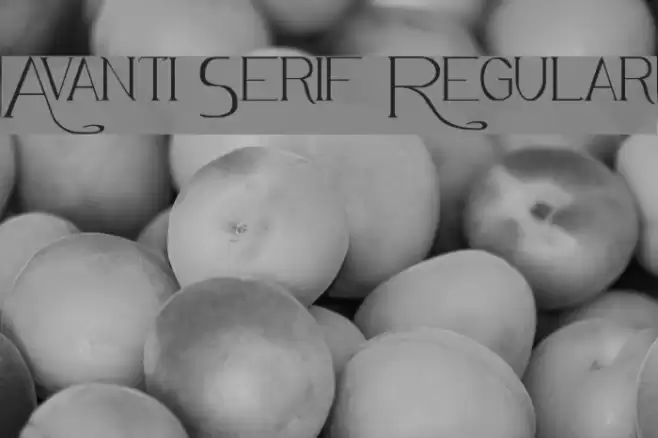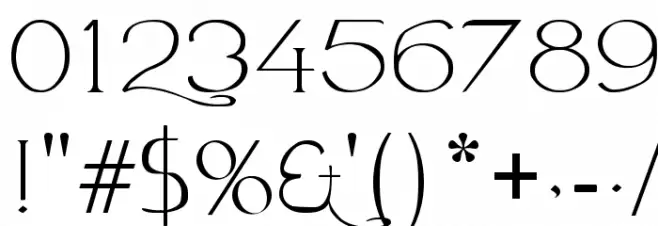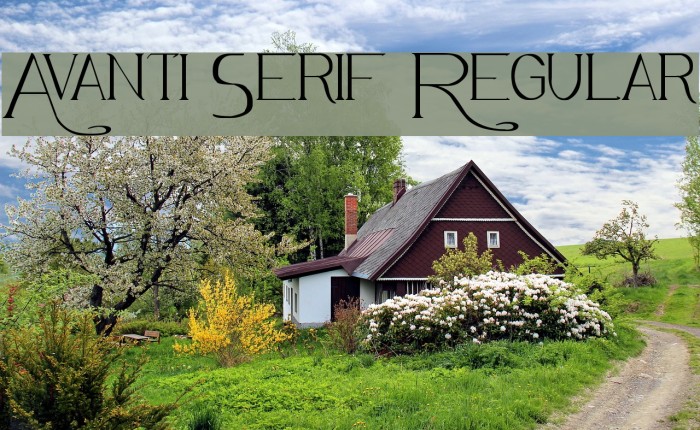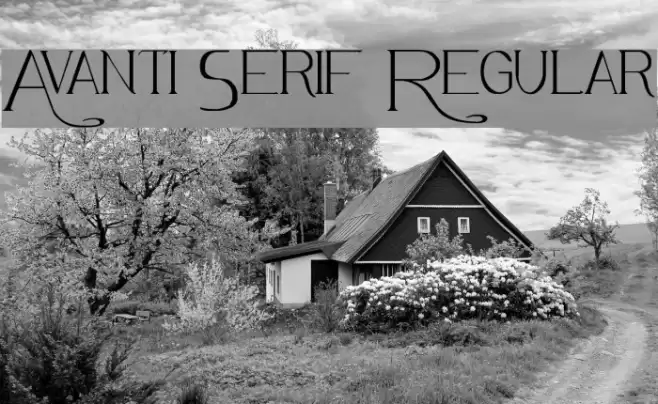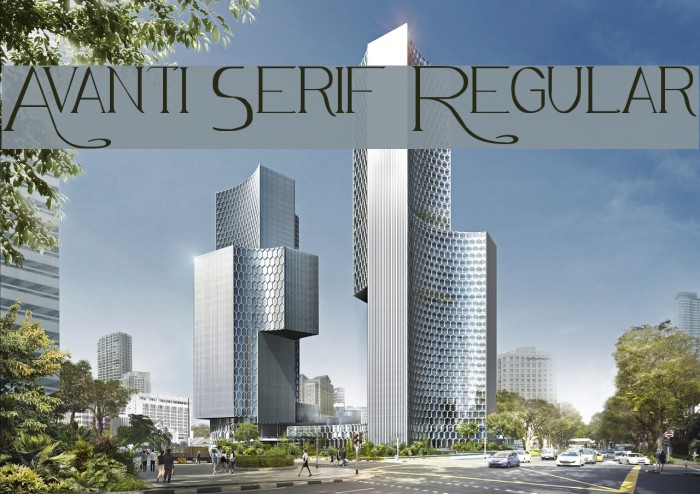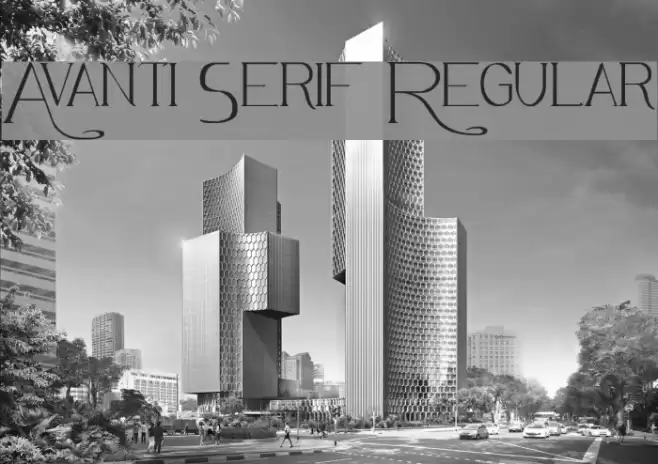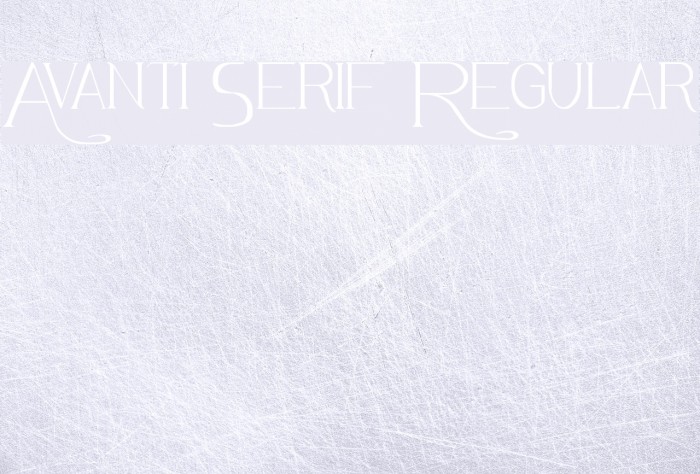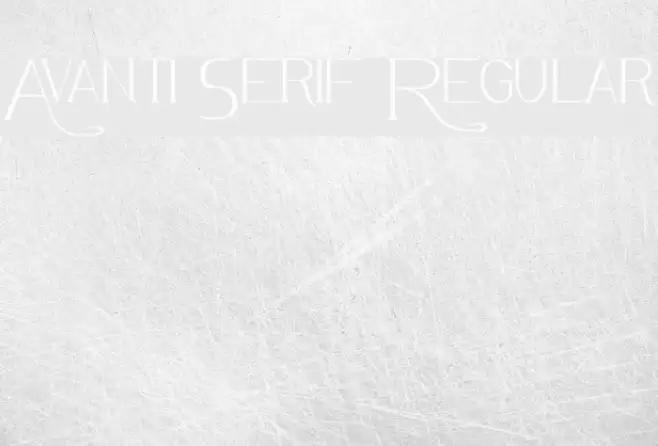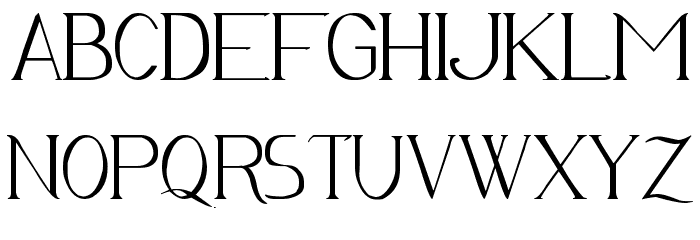
Avanti Serif Regular Font
Avanti Serif Regular Description
This font features elegant and elongated serifs with a classic and sophisticated appearance. The uppercase letters are adorned with decorative swashes, adding a touch of flair and elegance. The lowercase letters maintain a more traditional serif style, providing a balanced contrast to the ornate capitals. The numerals are consistent with the overall design, featuring subtle curves and a refined look. Special characters are thoughtfully integrated, maintaining the font's cohesive aesthetic. This font is ideal for projects that require a touch of elegance and sophistication.
An elegant serif font with decorative swashes and a classic style from Uncategorized fonts.
- Proposed Projects: Ideal for wedding invitations, luxury branding, editorial design, and elegant packaging.
- Overall Style: Classic